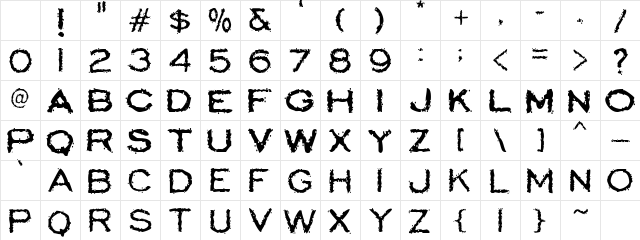
ScatterbrainedRestrained Regular
Design Context for ScatterbrainedRestrained
ScatterbrainedRestrained is a composed and adaptable typeface that performs quietly and consistently across a wide range of design contexts.